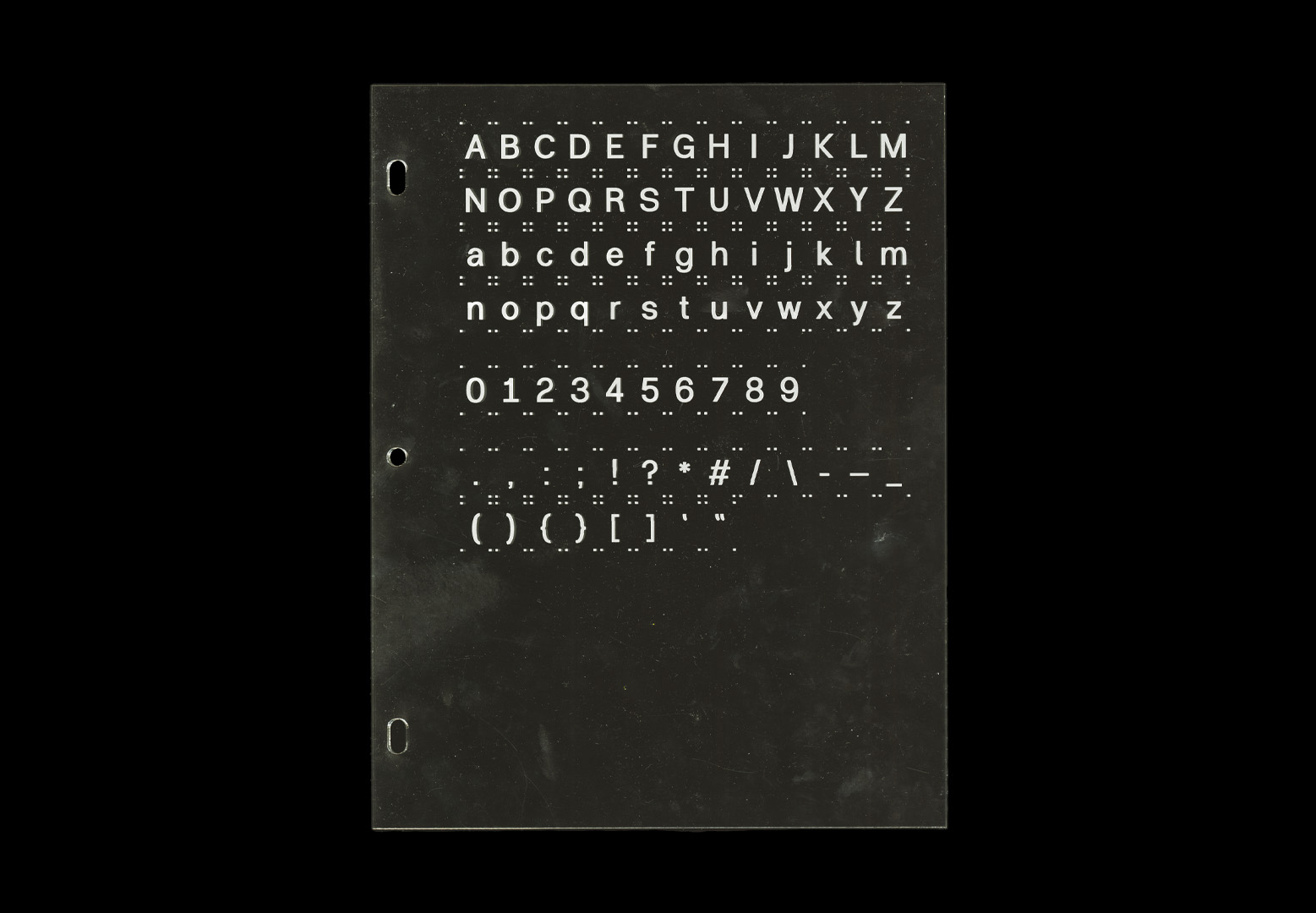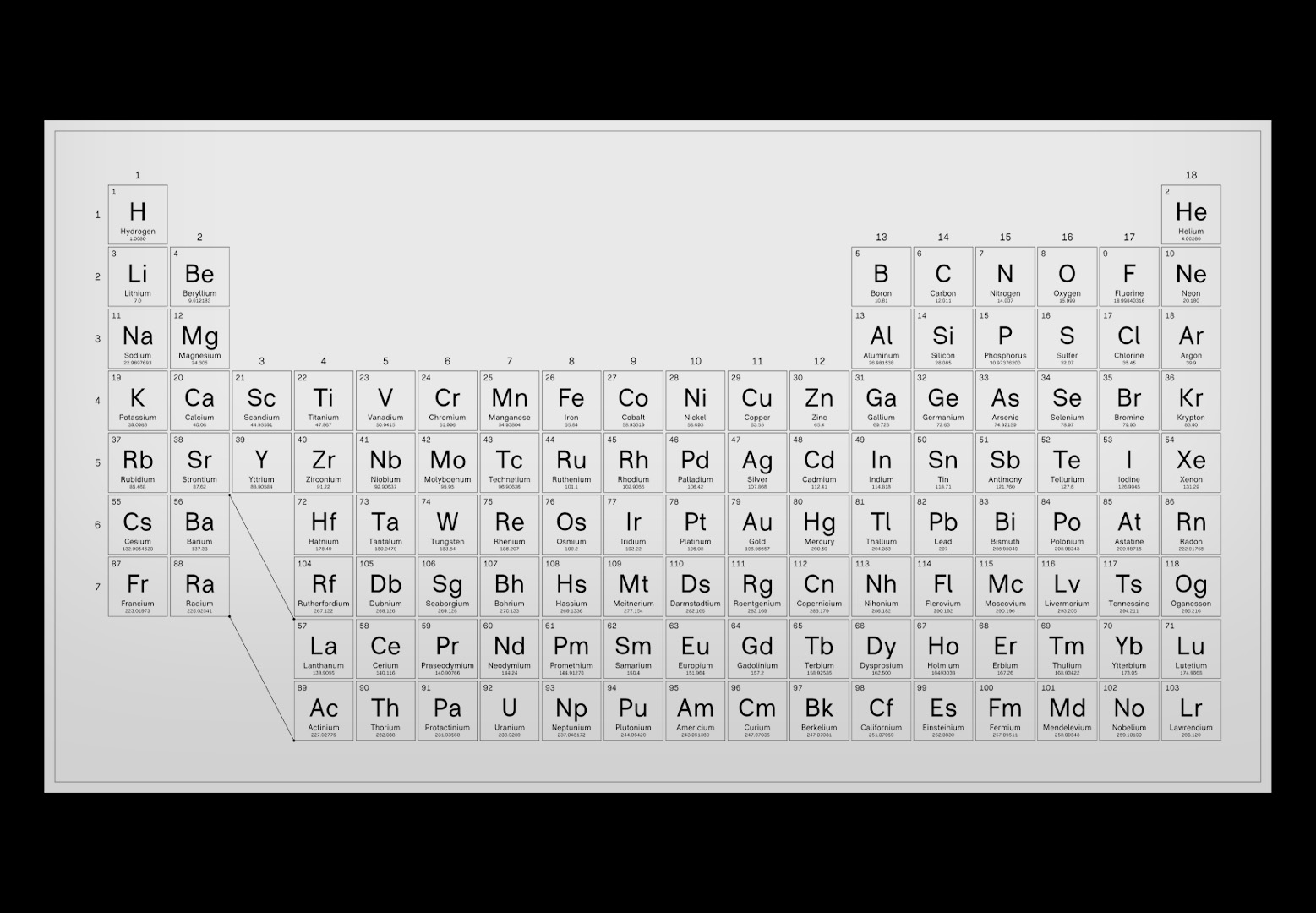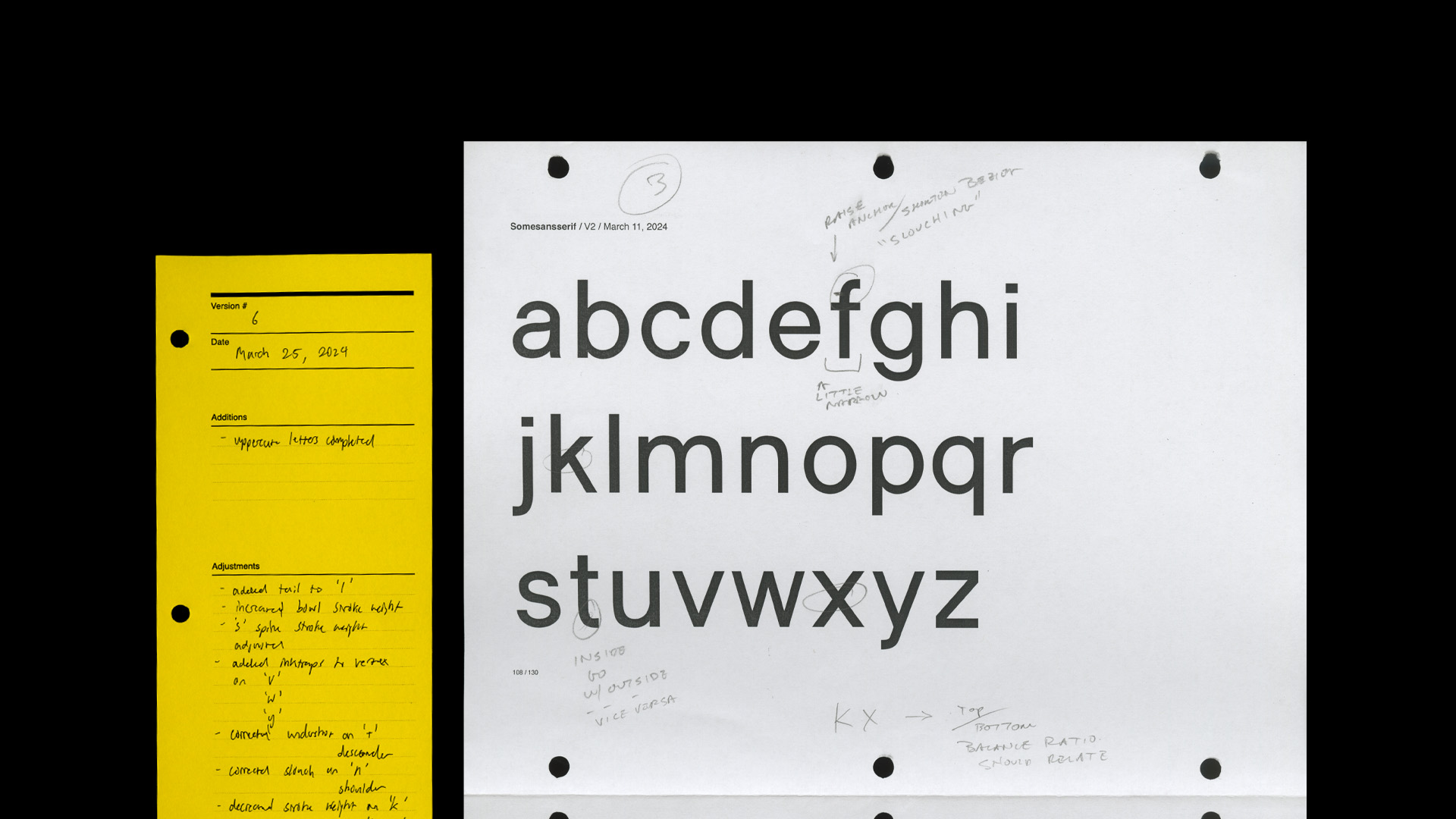
AC-1 is a typeface that acknowledges that because typography inevitably shapes meaning, there is no such thing as a neutral or objective typeface. Instead of aiming for invisibility or sterility, AC-1 asserts modesty and clarity as its guiding principles, fostering a respectful and thoughtful collaboration between type and text.